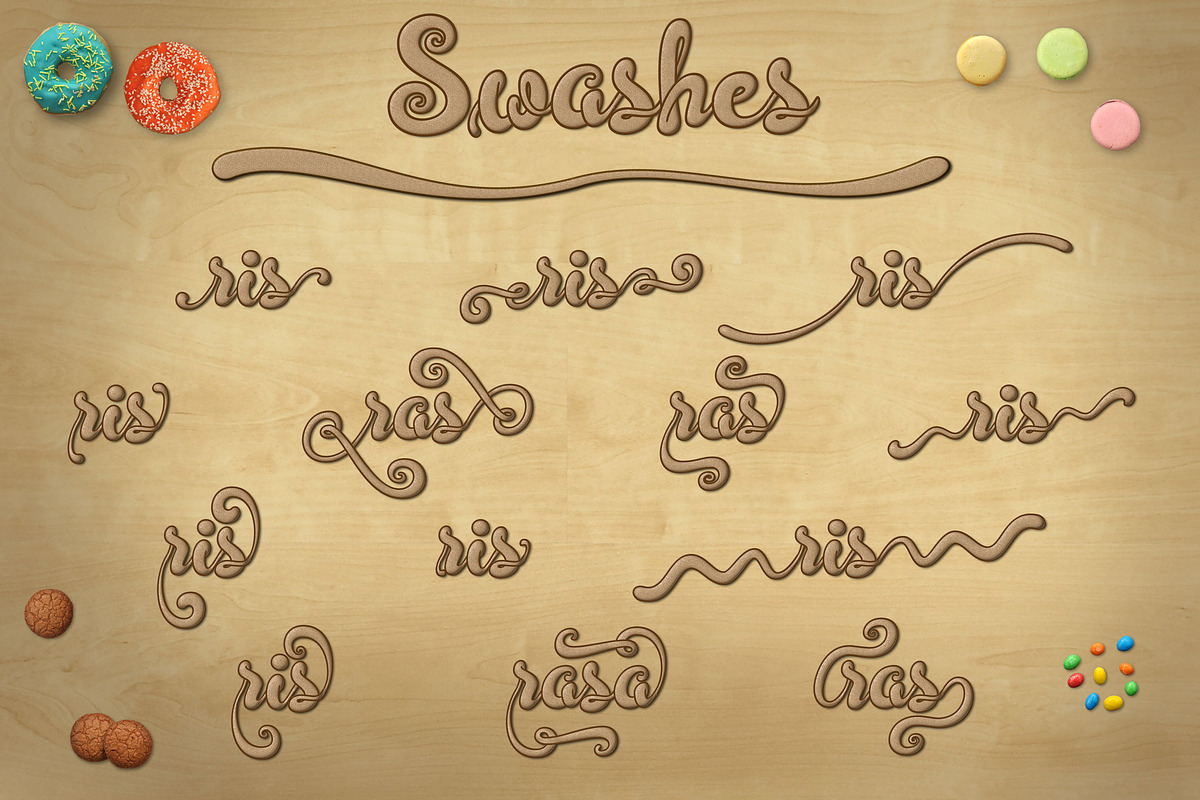
Simplisicky Script
I am really like this 3D script style and was big challenge for me to convert this into font, and now I success make it happen.
The greatness of this font:
- First 3D script into font.
- This font contain 450 glyphs and supported to all basic Latin character, Eastern Europe and Turkish language. 50 portable lowercase swash, it mean can create 50*26=1.300 extra alternate characters.
- To avoid of difficulty of use lowercase swash, I feature it with so many shortcuts to make access alternate character be so fast and easy! (Activate Contextual Alternates feature)